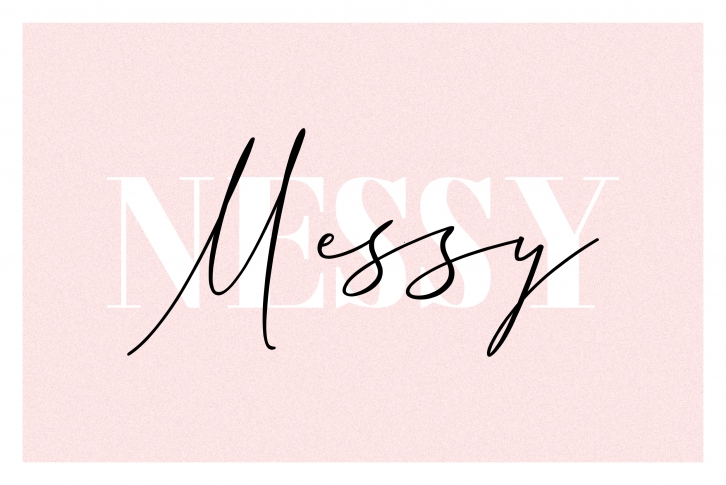
3 is a trendy and unique font with an authentic style. It was designed by Redy Studio and it's a great choice for creative people who need such a font. It was released on December 12, 2018 and the file size is 3.47 MB. 3 will add an organic vibe to any design idea!